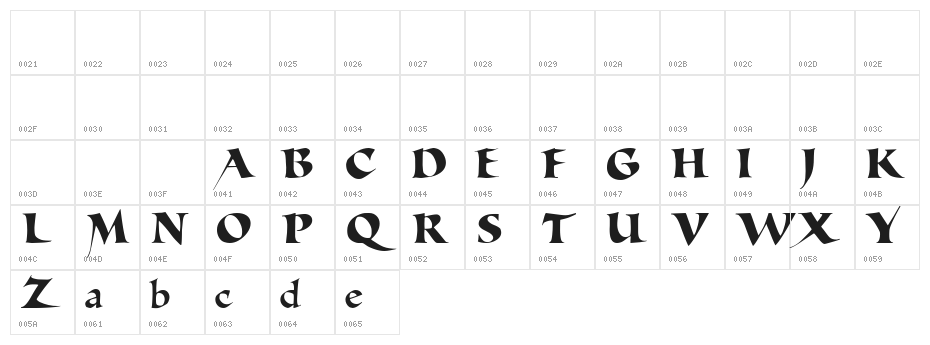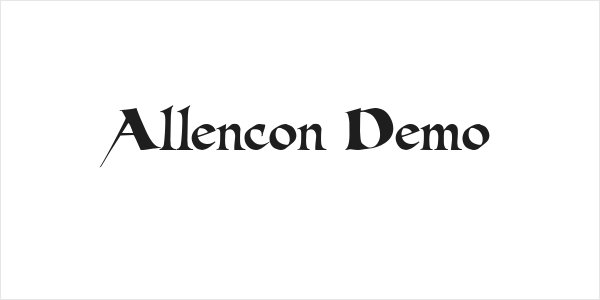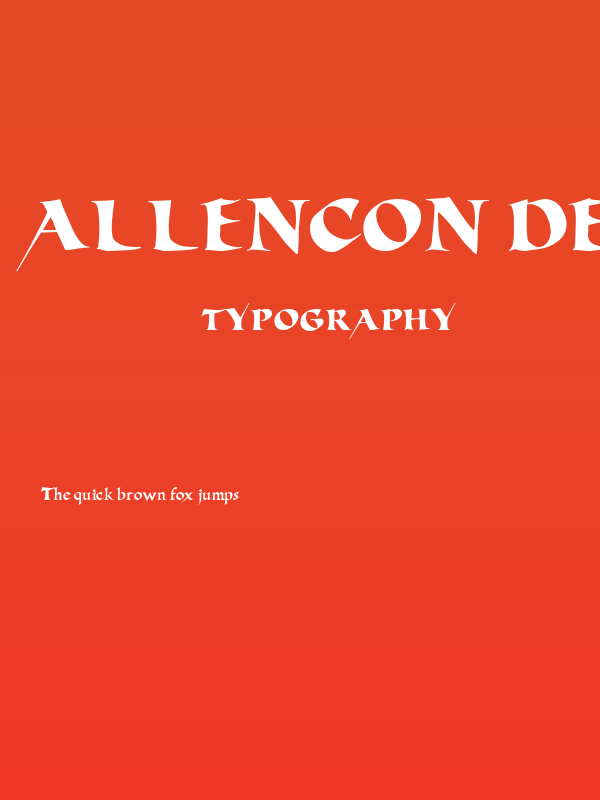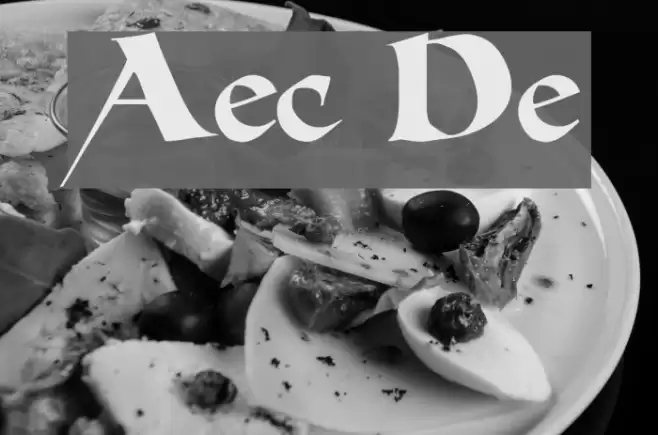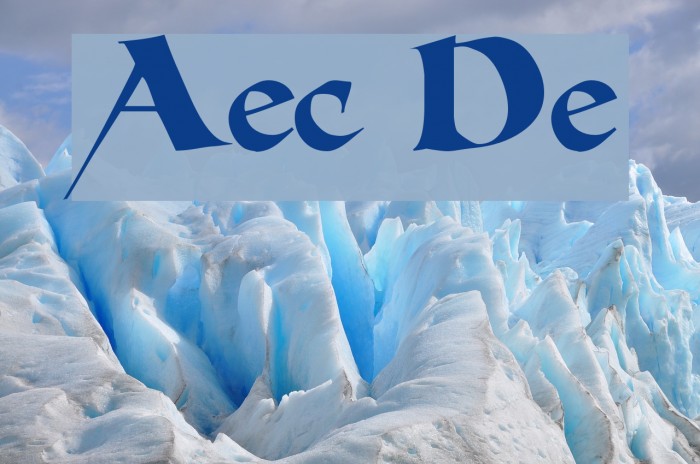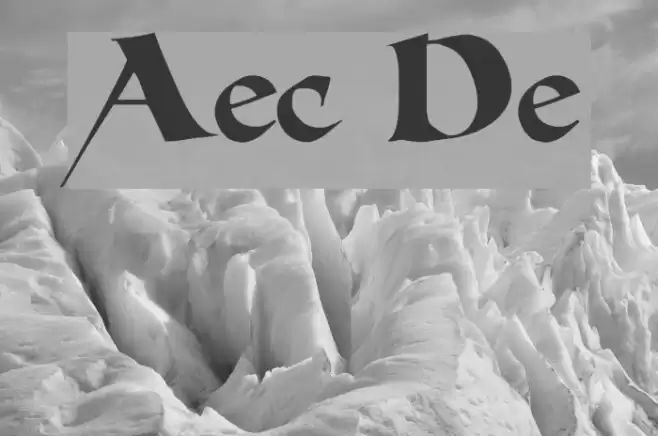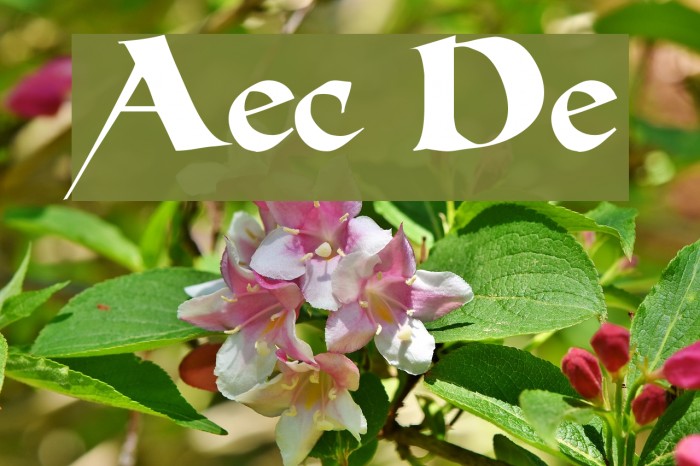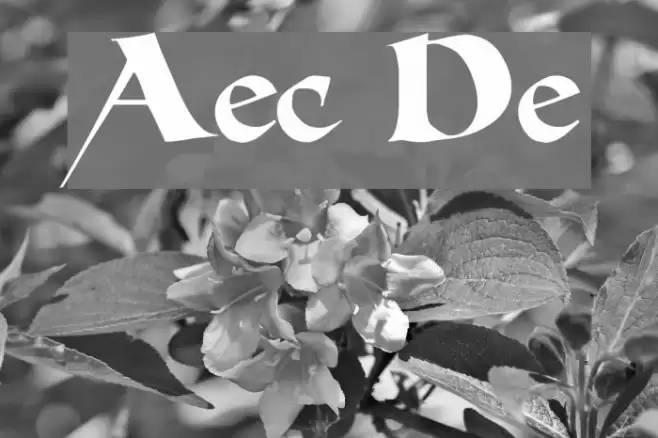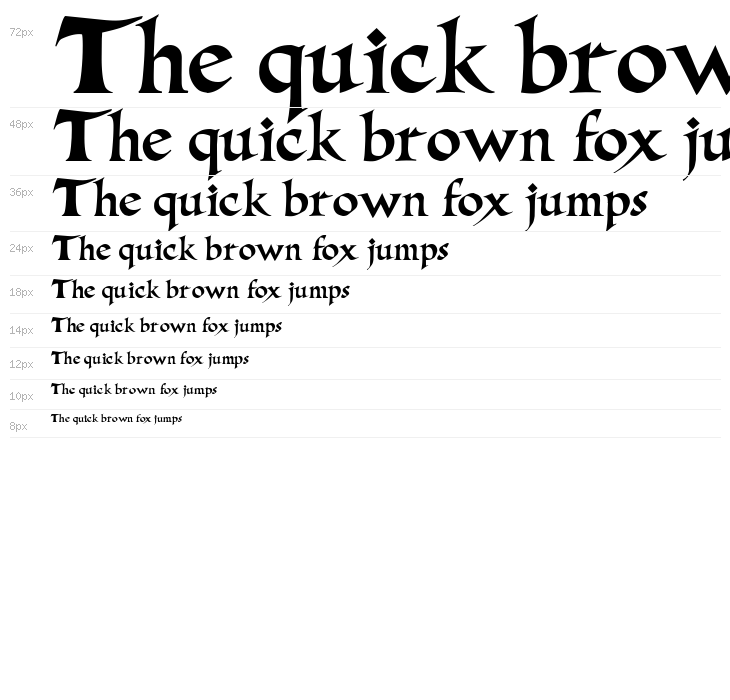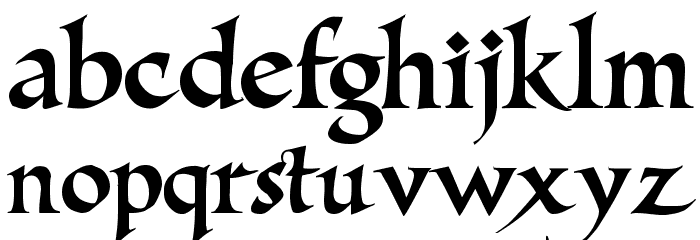
Allencon Demo Font
| Style général | Gothic, Decorative |
| Projets proposés | Ideal for fantasy book covers, historical event posters, or themed branding projects. |